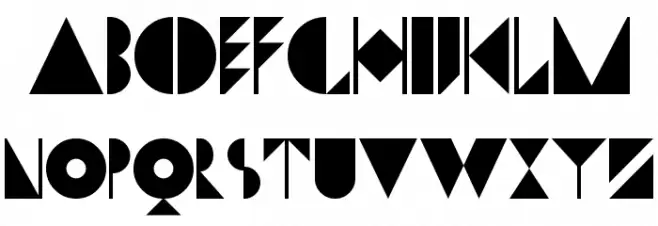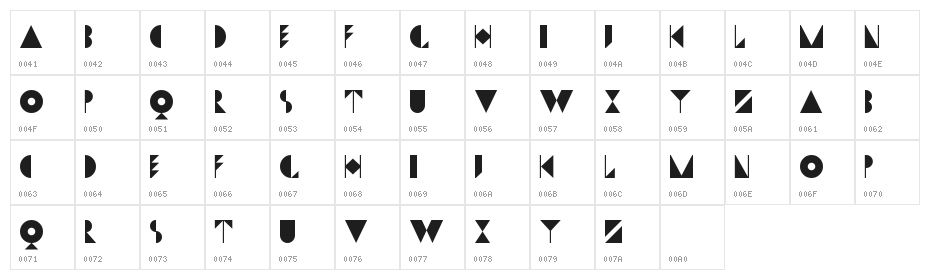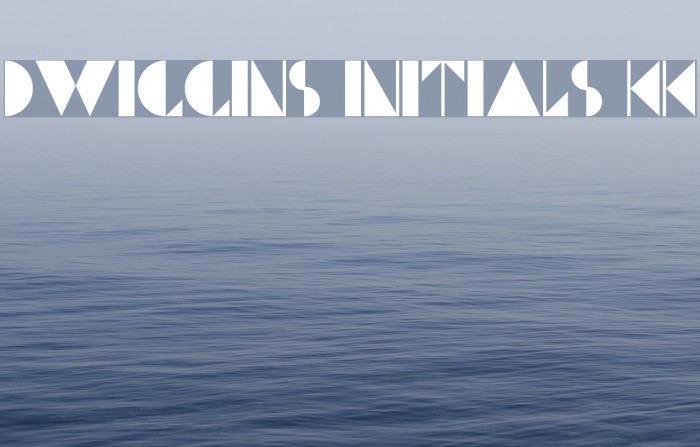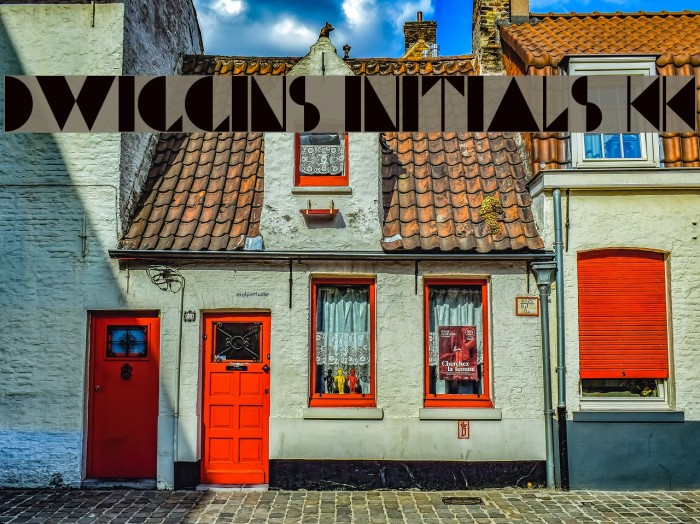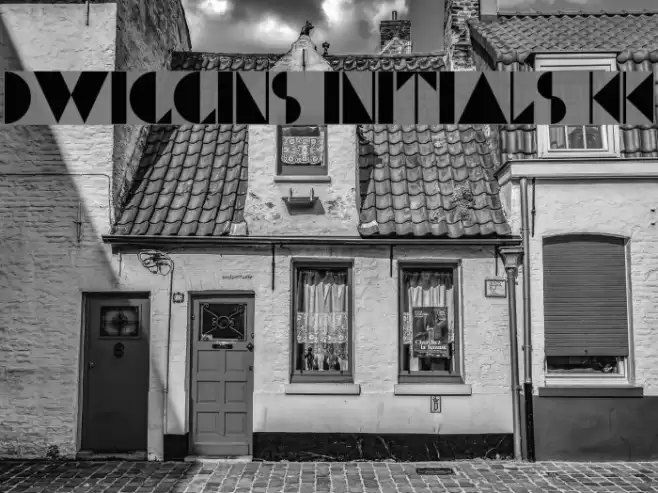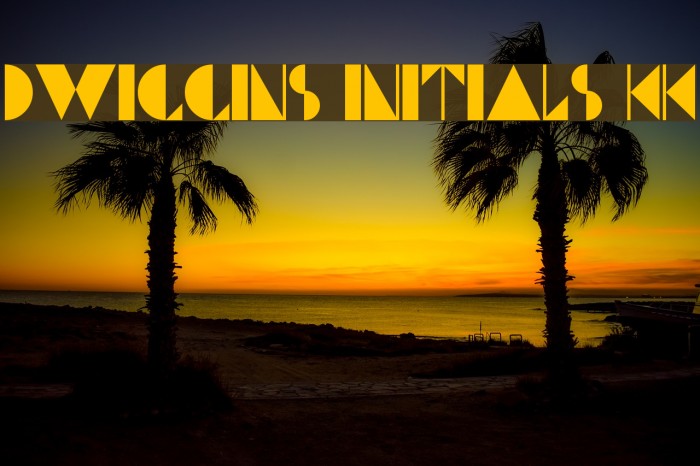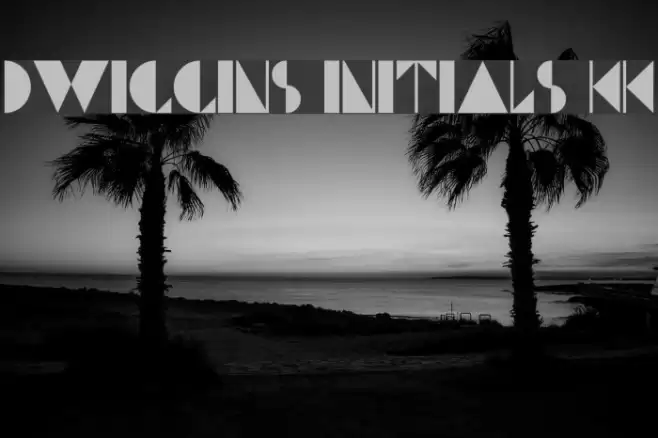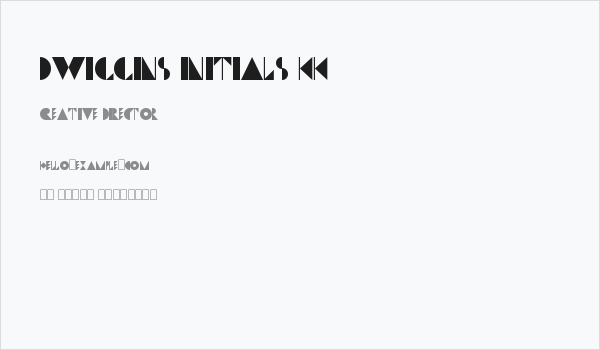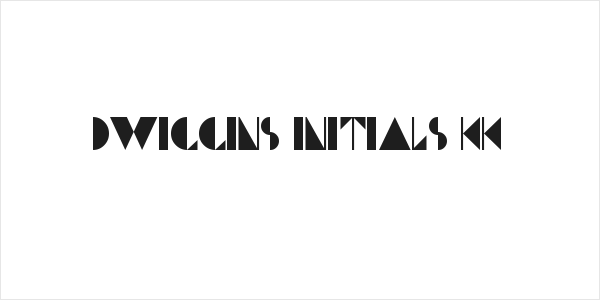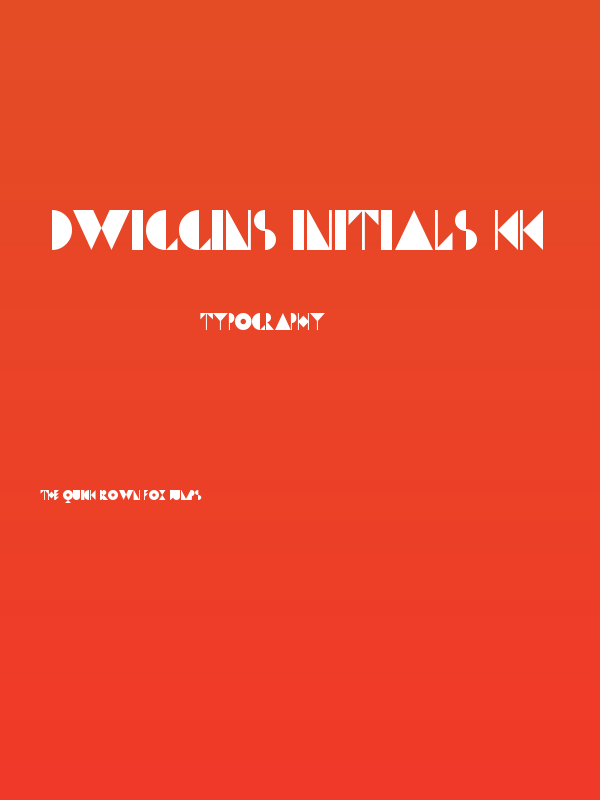
Dwiggins Initials KK Font
Dwiggins Initials KK Description
This font features a bold and geometric design, characterized by its use of sharp angles and circular forms. The letters are constructed with a mix of solid shapes and negative space, creating a striking visual impact. Each character is distinct, with a strong emphasis on symmetry and balance. The uppercase letters are particularly bold, with some characters resembling abstract shapes more than traditional letterforms. This font is ideal for projects that require a modern and artistic touch, offering a unique aesthetic that stands out.